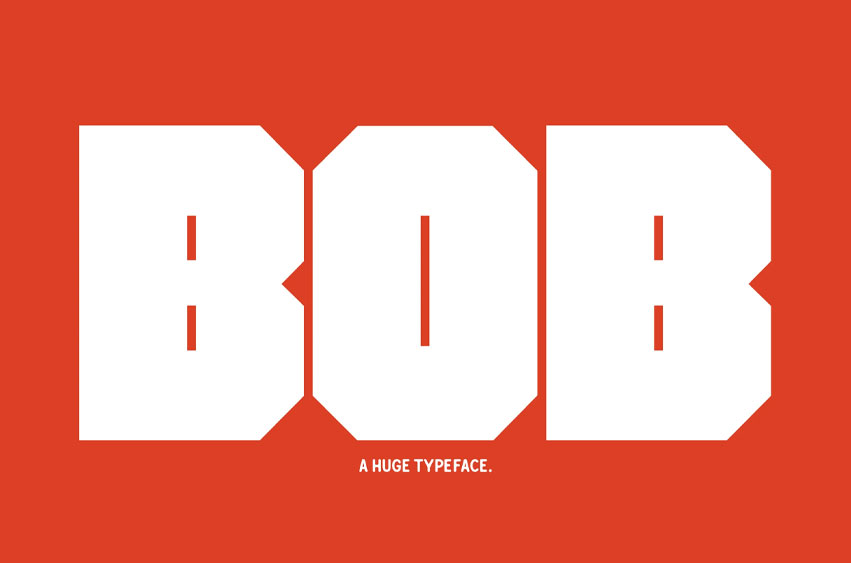
Bob Font
Bob Font here needs his space. He should be used in a large manner and the bigger the better. Excellent for posters and prints.
Contains basic latin and a lot more glyphs. Roughly 200 glyphs.